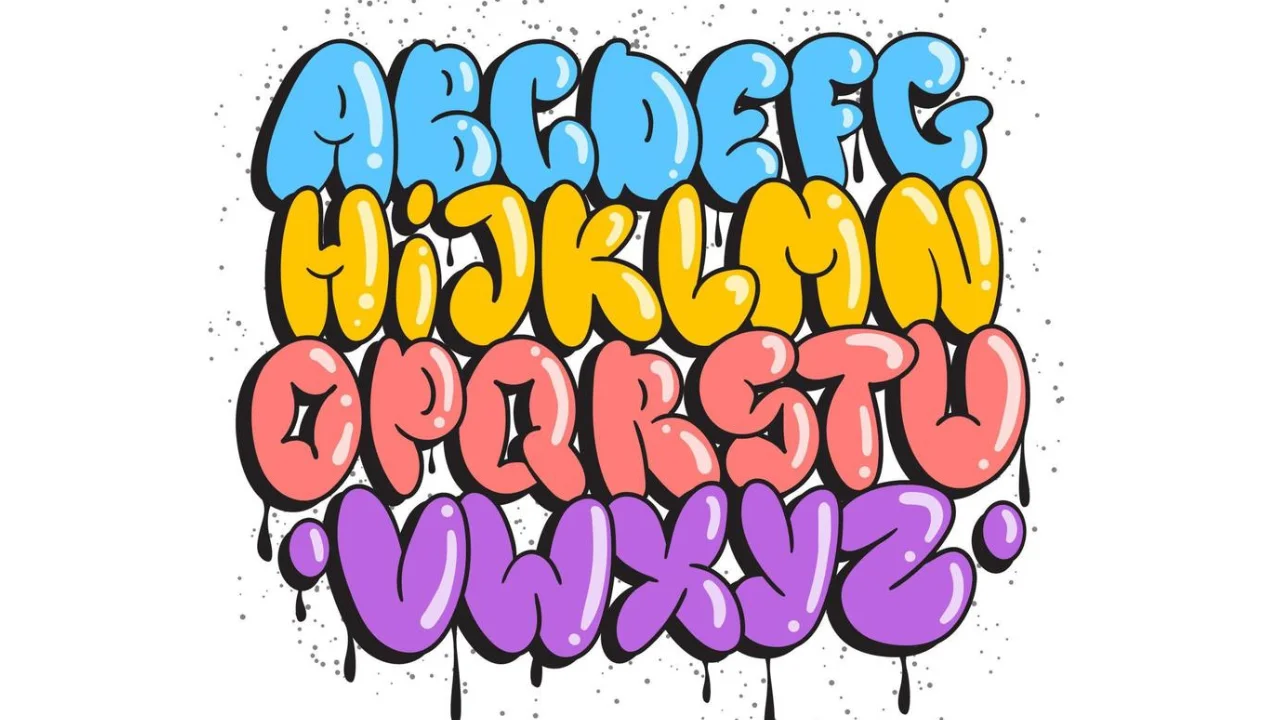
bubble letters alphabet
Bubble Letters Alphabet A To Z
The bubble letters alphabet is one of the most popular styles of lettering used in art, design, and education. Its playful, rounded, and eye-catching shapes make it a favorite for posters, banners, graffiti, and school projects. Unlike traditional fonts, bubble letters add character and personality to writing, making words stand out.
This style is often the first step for beginners who want to learn creative lettering. It combines simplicity with boldness, which makes it easy to read while still looking artistic.
Bubble Letters Styles, History, and Tips
What Are Bubble Letters?
Bubble letters are a form of typography where each letter looks inflated, as if filled with air. The shapes are soft and rounded, which gives them a cartoon-like appearance. Unlike sharp-edged fonts, bubble letters are meant to be fun and friendly.
Artists use them in graffiti art, teachers use them in classrooms, and kids use them in coloring activities. Their flexibility allows people to adapt them into different styles, from simple outlines to colorful, shaded, or even 3D versions.
History of Bubble Letters
The bubble letters alphabet became popular during the 1970s and 1980s, especially in street art and graffiti. Artists wanted their tags and messages to be bold and visible from a distance, and rounded letters achieved that effect.
With the rise of hip-hop culture, bubble letters became a signature style in murals and urban art. Over time, the style spread into schools, children’s books, and digital media. Today, it remains one of the most recognized forms of creative lettering worldwide.
Why Use Bubble Letters?
Bubble letters are used for several reasons:
1. Attract Attention – Their bold style makes them perfect for signs, banners, and posters.
2. Encourage Creativity – Kids and adults enjoy experimenting with different designs.
3. Easy to Customize – They can be outlined, colored, shaded, or turned into 3D.
4. Fun Learning Tool – Teachers use the bubble letters alphabet to help children learn letters in an engaging way.
Step-by-Step Guide to Drawing Bubble Letters Alphabet
Learning to draw bubble letters does not require advanced skills. Anyone can practice with these steps:
1. Start with Basic Letters – Write the letter in regular form using a pencil.
2. Outline the Shape – Draw a rounded border around the letter, making sure each part looks inflated.
3. Erase the Inside – Remove the original pencil letter so only the rounded outline remains.
4. Add Details – Make the letters bold, and add small curves to smooth sharp edges.
5. Decorate – Use colors, patterns, or shading to bring them to life.
For beginners, it’s best to start with capital letters, as they are easier to shape.
Different Styles of Bubble Letters
Bubble letters can be adapted into many styles. Some of the most popular ones include:
• Outline Bubble Letters – Simple shapes without filling.
• Colored Bubble Letters – Filled with solid colors or patterns.
• 3D Bubble Letters – Designed with shadows to create depth.
• Graffiti Bubble Letters – Bold, edgy, and often with artistic flair.
• Cartoon Bubble Letters – Fun designs often seen in children’s media.
These styles make the bubble letters alphabet versatile for different uses, whether for street art, digital design, or educational purposes.
Educational Use of Bubble Letters
Teachers often use bubble letters in classrooms because they grab students’ attention. Worksheets with bubble letters help children recognize shapes, practice coloring, and improve their fine motor skills.
For example, preschool teachers might print bubble letter worksheets where kids color the alphabet. This playful method helps students connect learning with creativity.
Bubble Letters in Digital Design
With digital tools, bubble letters have become even more popular. Graphic design software, word processors, and online font libraries often include bubble-style fonts.
Designers use these fonts in:
• Logos
• Party invitations
• Greeting cards
• Posters and flyers
• Social media graphics
The bubble letters alphabet remains a favorite in digital media because it conveys energy and fun.
Popular Tools for Bubble Letters
Artists and students can create bubble letters in different ways:
• Hand-drawing with pencils, markers, or paints.
• Stencils for easy tracing and consistency.
• Online Generators that instantly convert text into bubble letters.
• Graphic Design Software like Photoshop, Canva, or Illustrator.
Each tool provides flexibility depending on the project, from quick school assignments to professional art.
Bubble Letters in Graffiti
Graffiti artists were among the first to use bubble letters widely. The rounded, inflated style made it easy to create bold tags on walls and trains. Over time, graffiti bubble letters evolved into more complex, colorful designs that became a key part of urban art.
Conclusion
The bubble letters alphabet is more than just a fun way of writing. It is a form of creative expression that has stood the test of time. From classrooms to digital design and from graffiti walls to greeting cards, bubble letters continue to bring joy and creativity.
Their bold, rounded shapes make them easy to recognize, while their flexibility allows endless customization. Whether you’re a student, teacher, artist, or designer, bubble letters provide a simple yet powerful way to make words come alive.